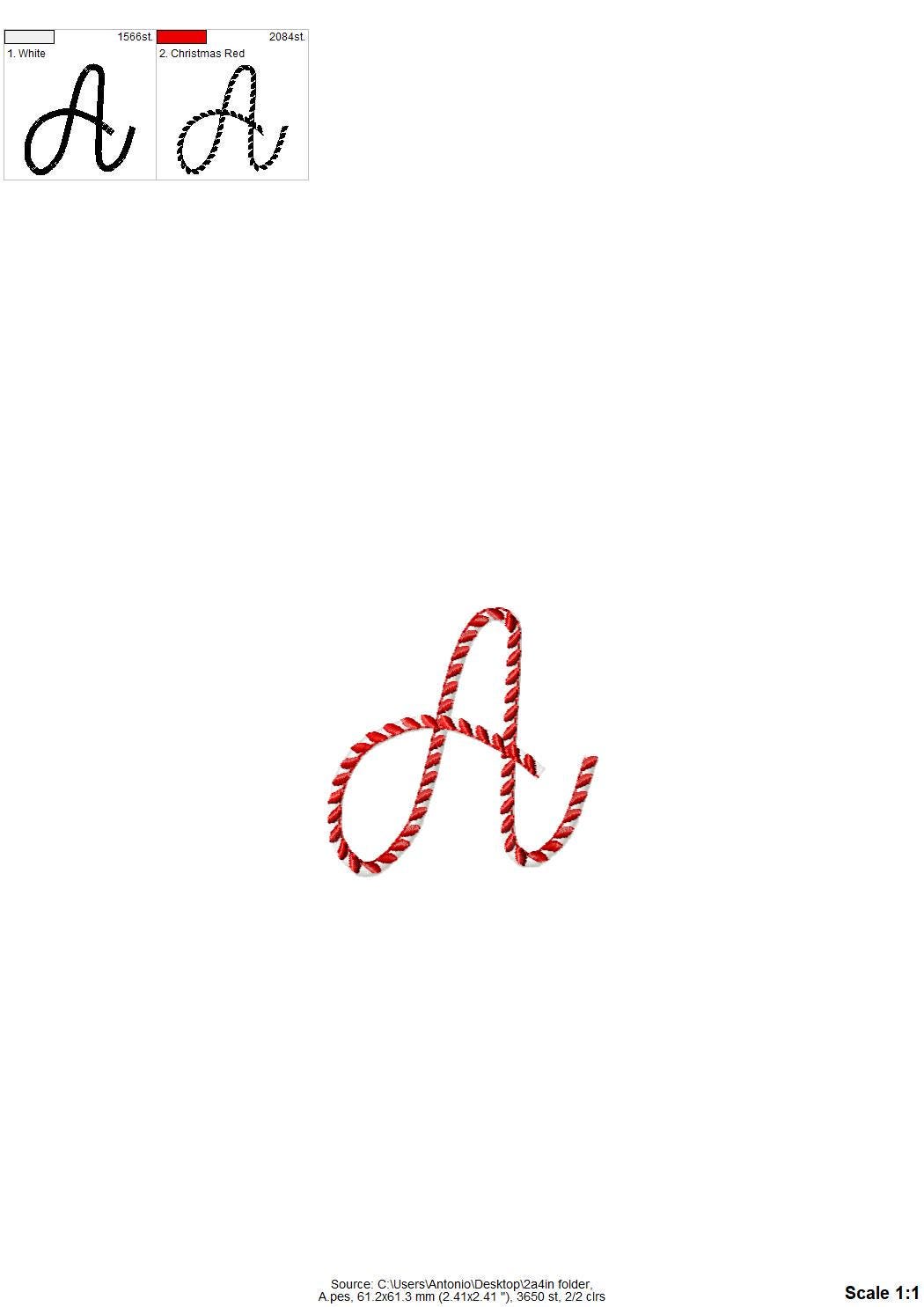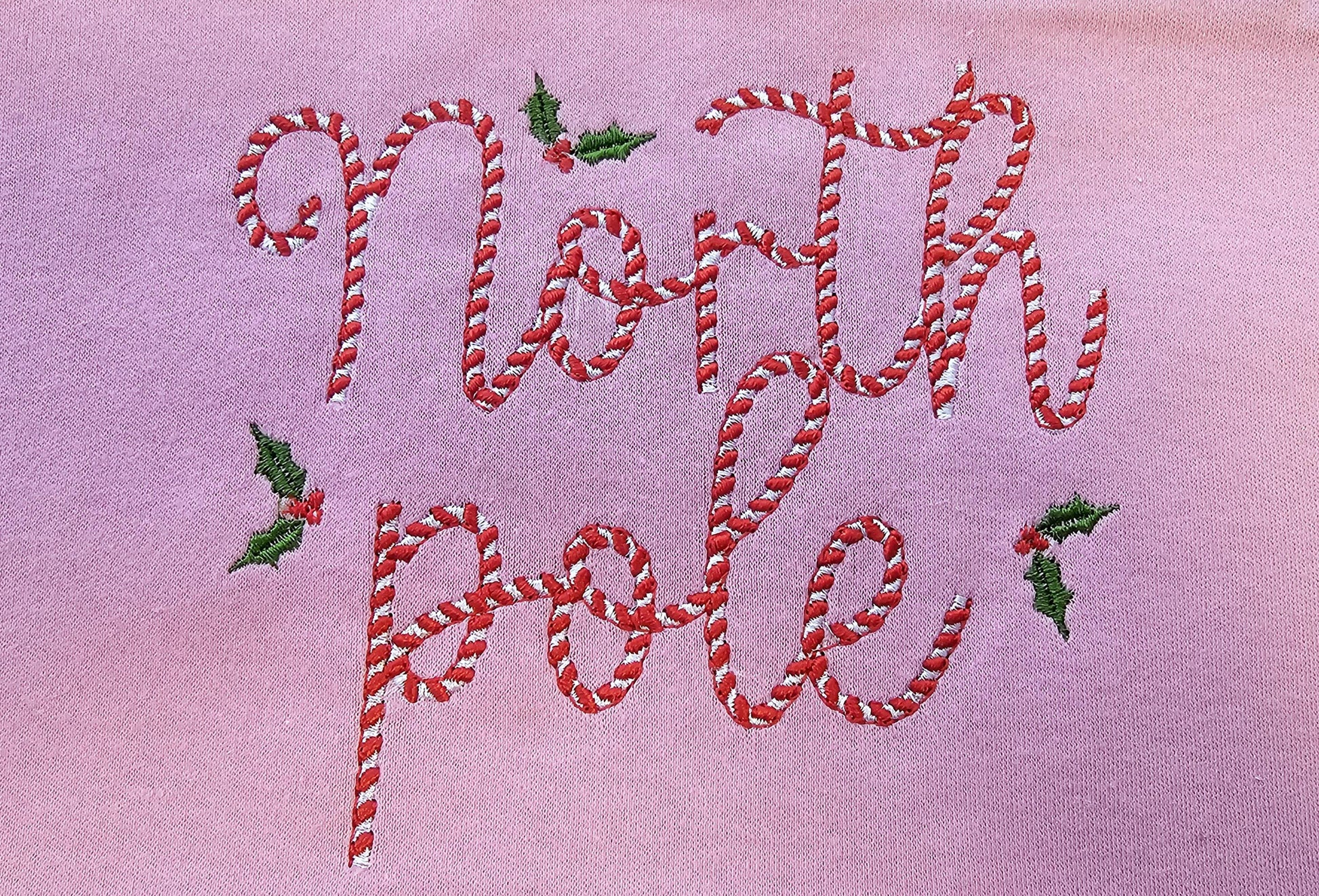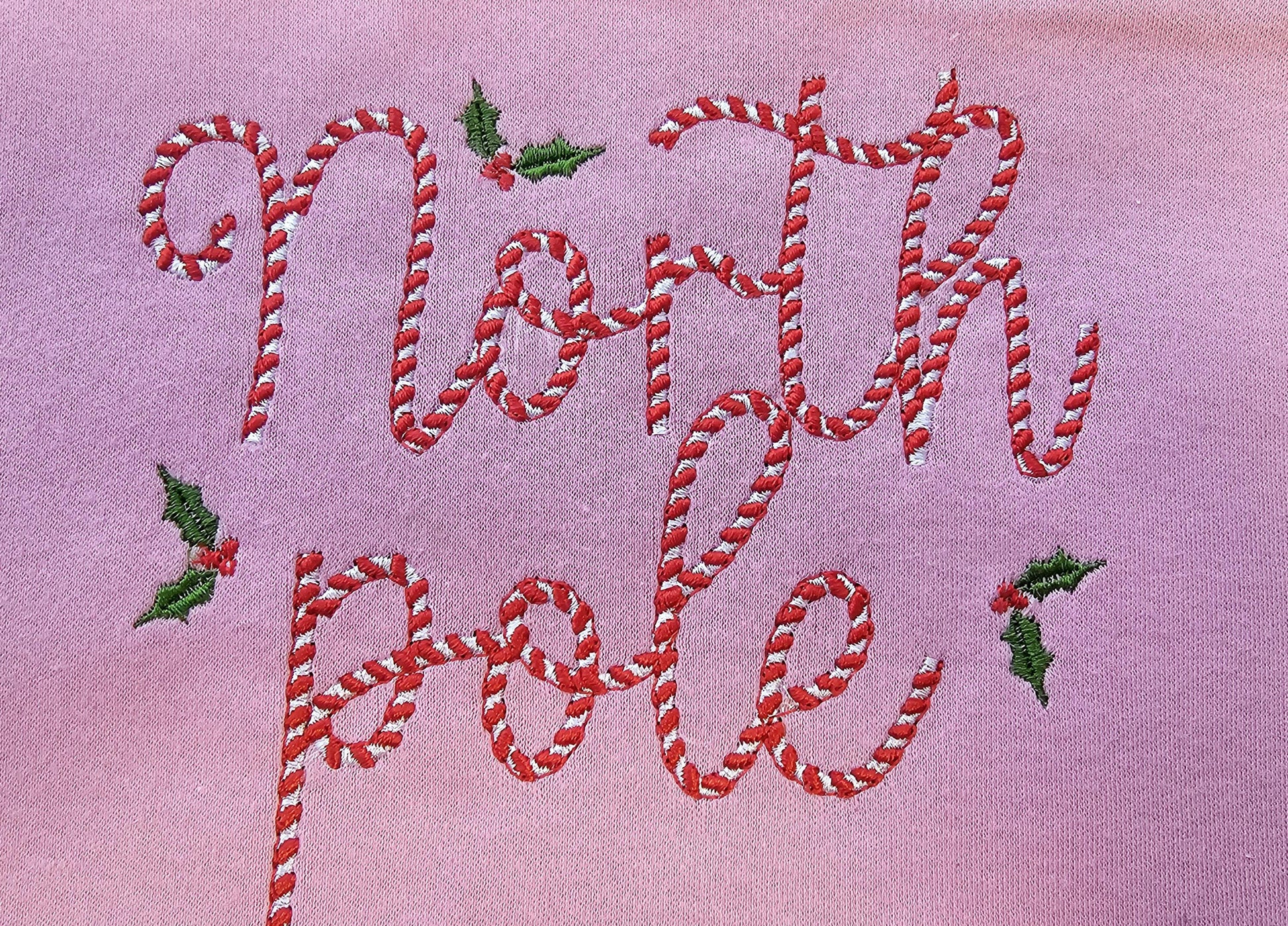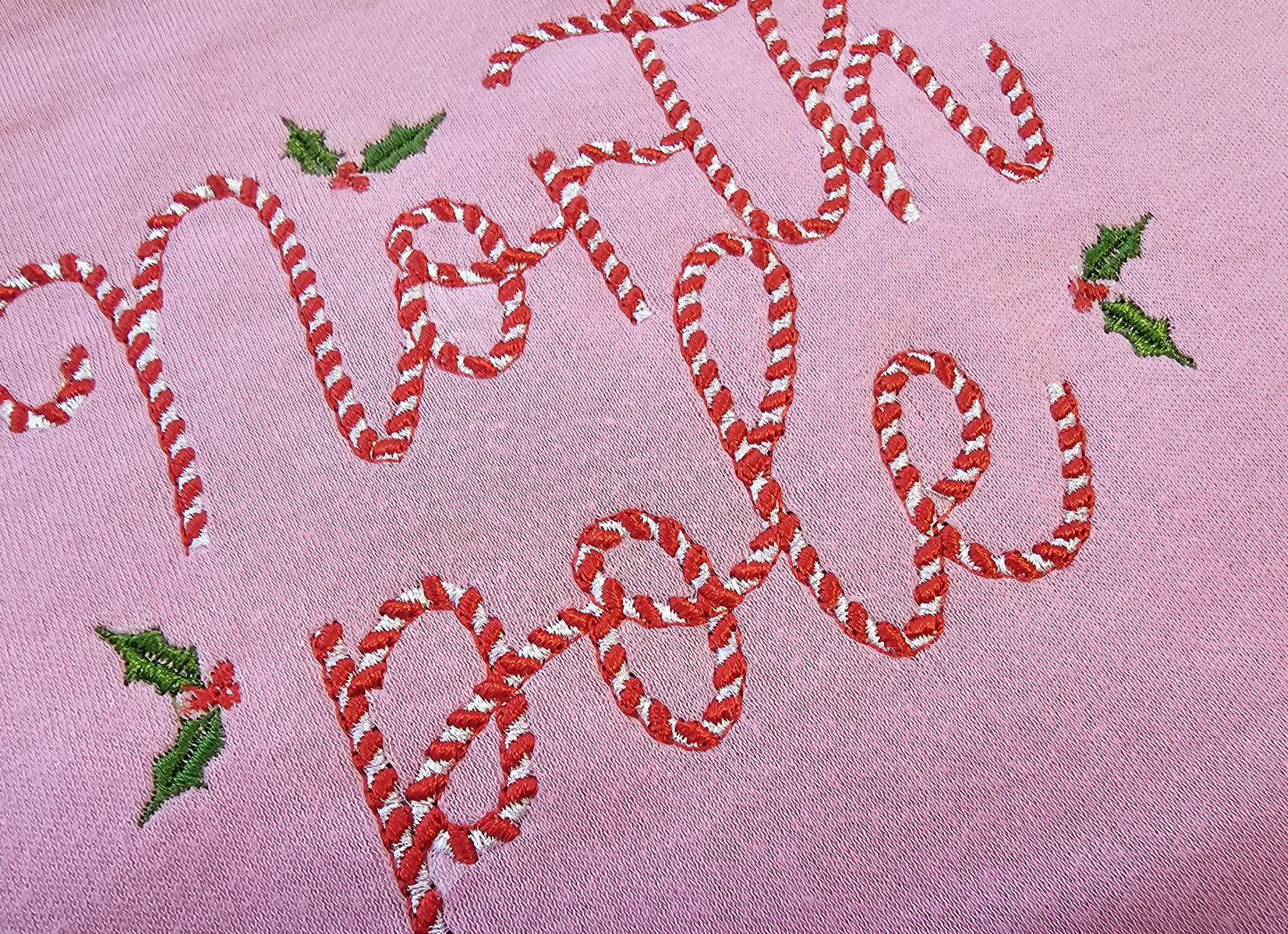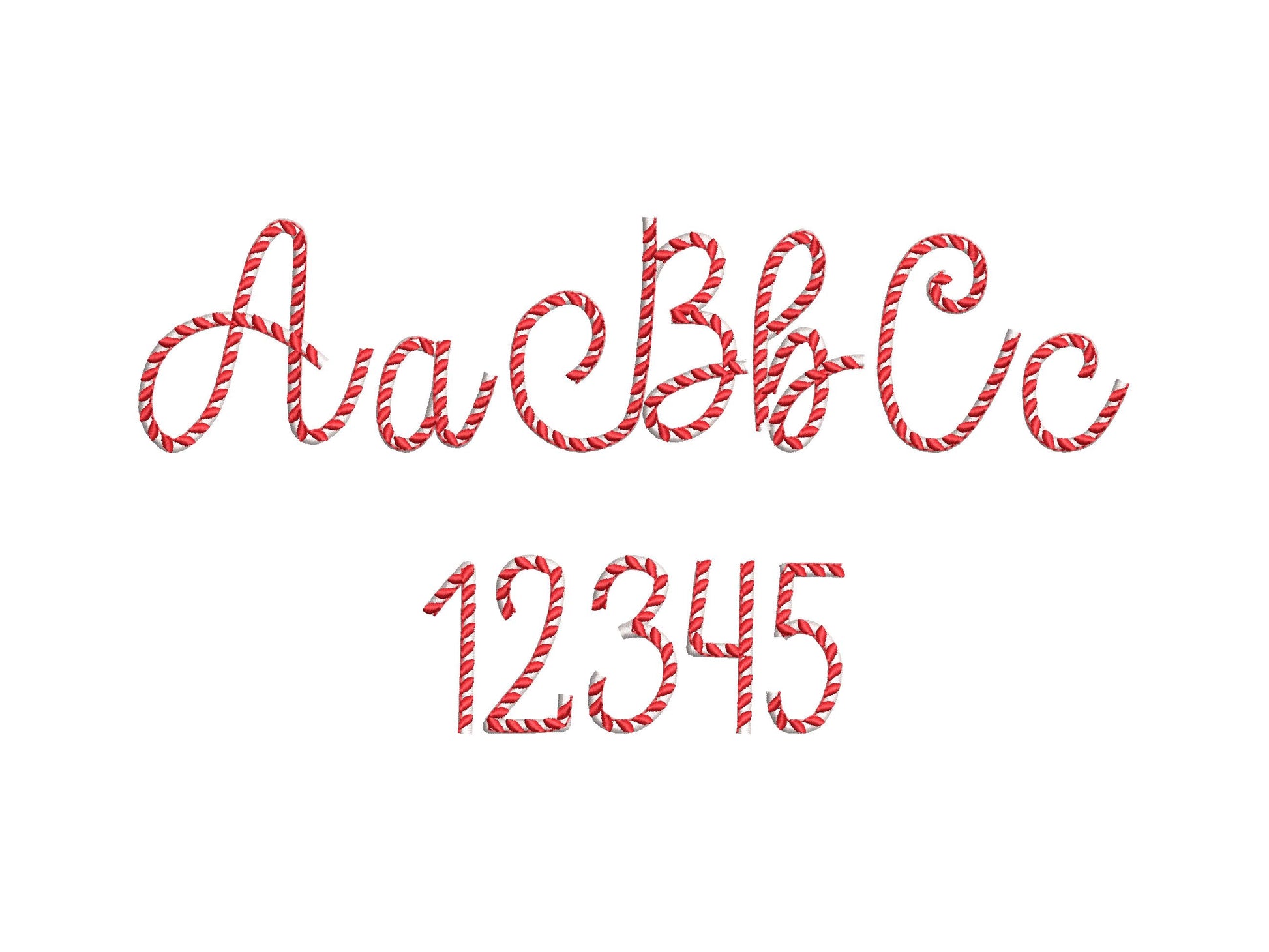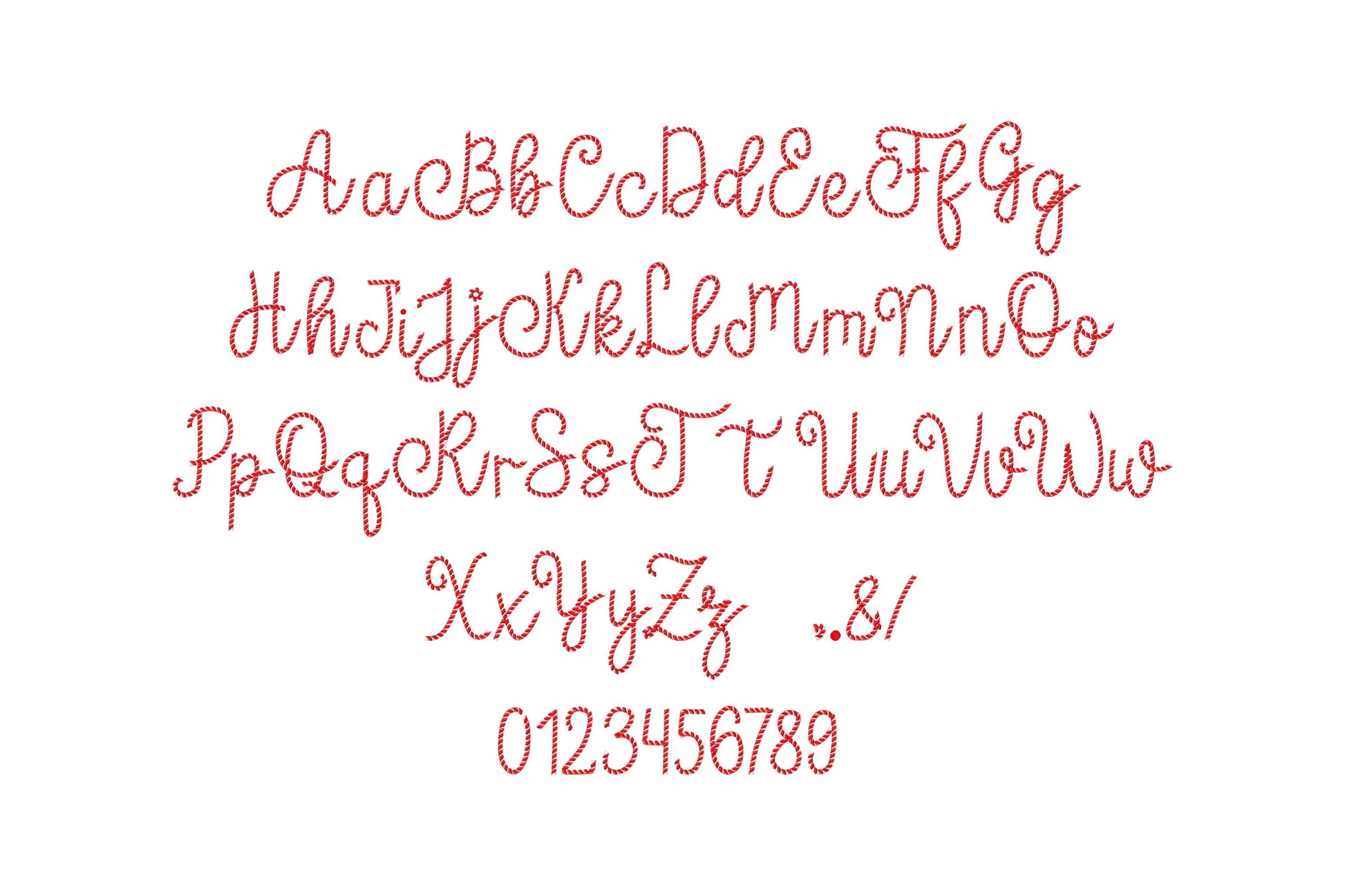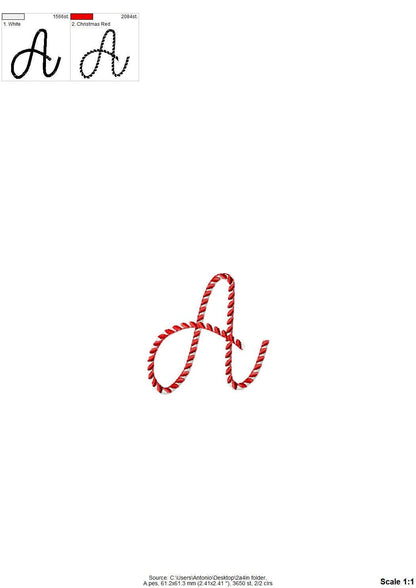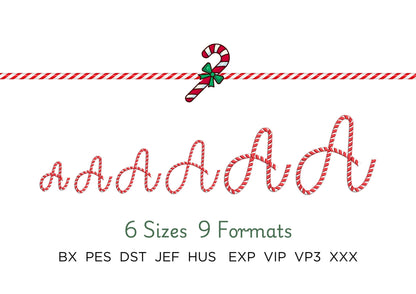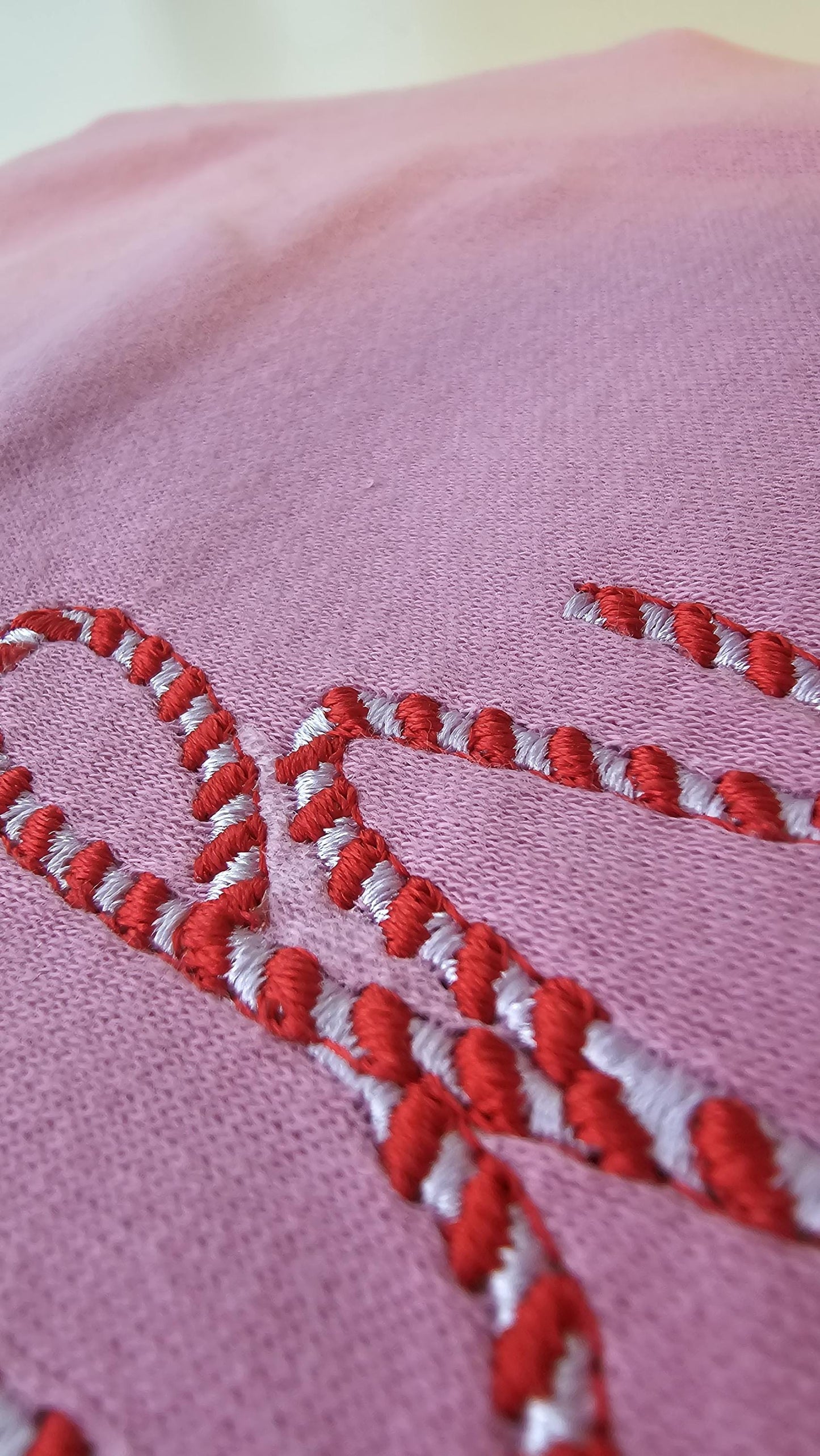
Or click to open the linkA striped candy cane font stitched in two colors. Perfect for Christmas stockings, holiday shirts, ornaments and names.
Uppercase and lowercase letters, numbers 0 to 9 and punctuation, in six sizes: 1.3, 1.7, 2, 2.4, 3 and 3.6 inches. Every letter has candy cane stripes in two thread colors.